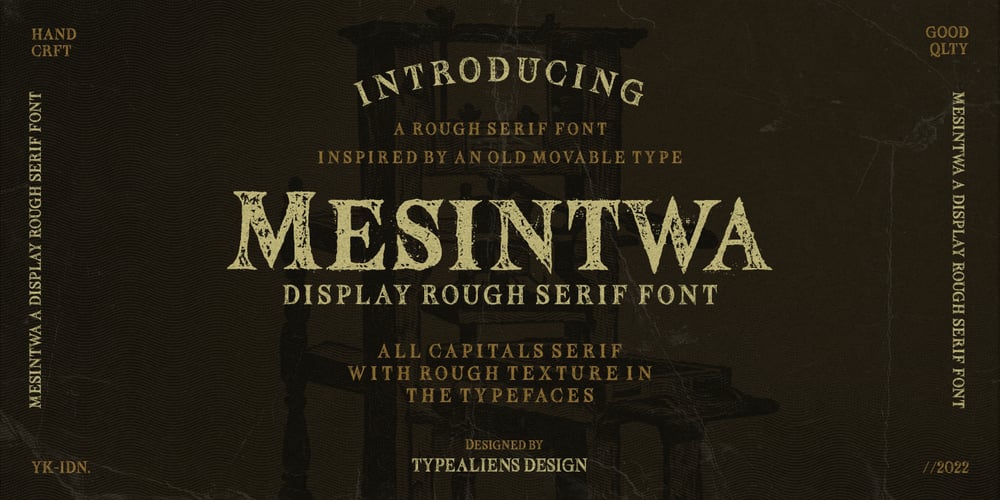
Mesintwa Font Family was designed by Ilham Wahyu and published by Ilhamtaro. Mesintwa contains 1 styles and family package options. MESINTWA is a font that is basically a classic serif font then to make it different from other serifs is to give the effect as if it were a letter on a letterpress machine, it will add a vintage impression because remembering that letterpress machines were the beginning of a printing press.To enable the OpenType Stylistic alternates, you need a program that supports OpenType features such as Adobe Illustrator CS, Adobe Indesign & CorelDraw X6-X7. Guides to access all alternates glyphs : http://adobe.ly/1m1fn4YCheers!